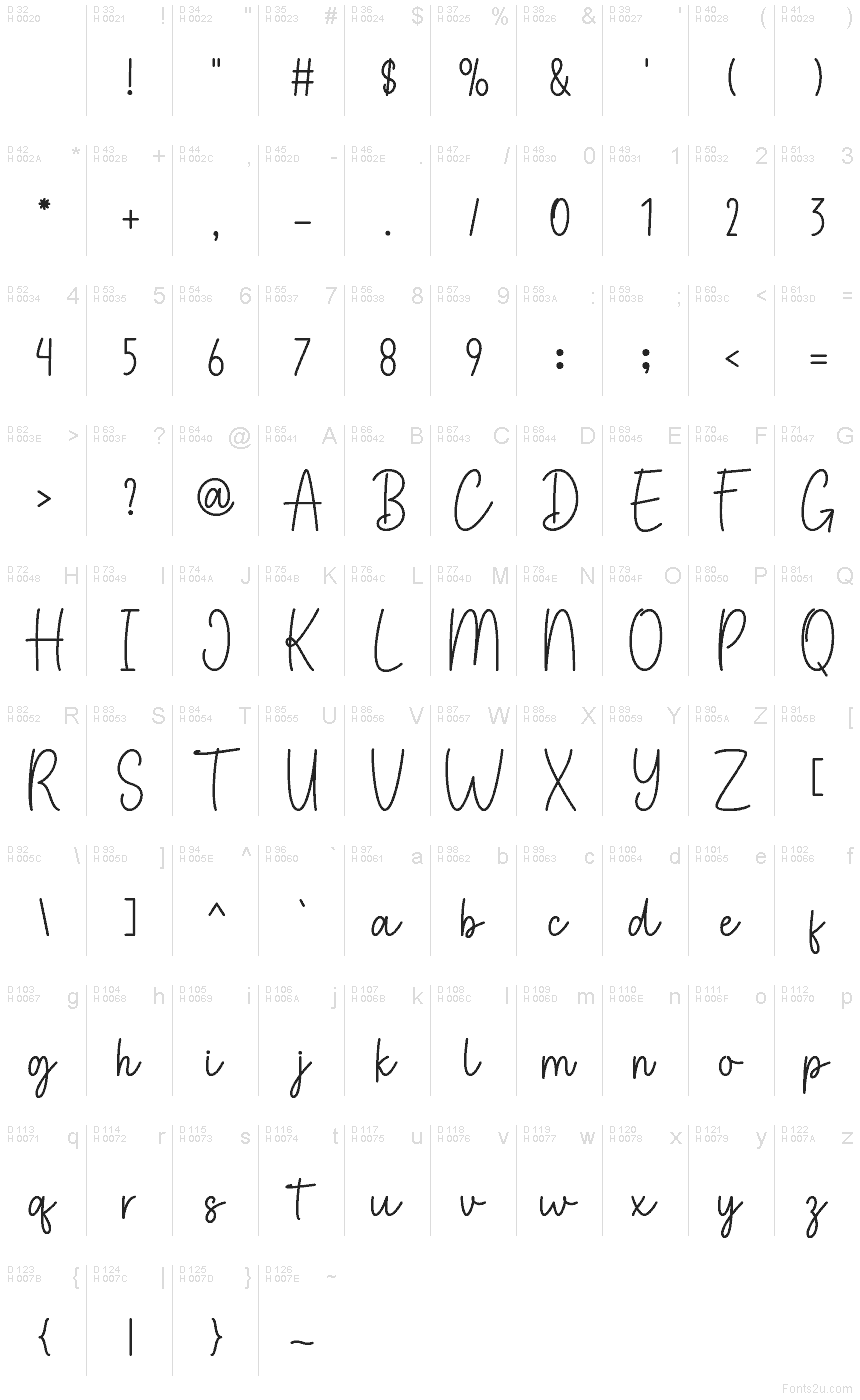
Carlotte
Carlotte font by Wahyu Studio is a free handwritten font that exudes casual elegance and smooth flow. Its light weight combined with its modern appeal makes the typeface look both approachable and highly legible in any use. The set has a signature style where the letters’ balanced heights and nearly monoweight stem thickness make reading more inviting.
Use Carlotte on product packaging, typographic magazine covers, branding purposes, or signage designs. It can be used to edit your YouTube format artwork, mobile or console games, smartphone apps, music videos, Instagram posts or profile descriptions..